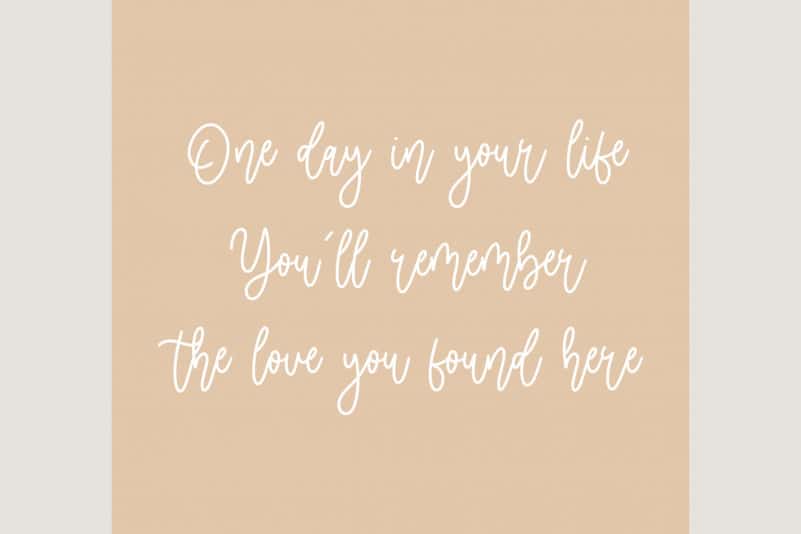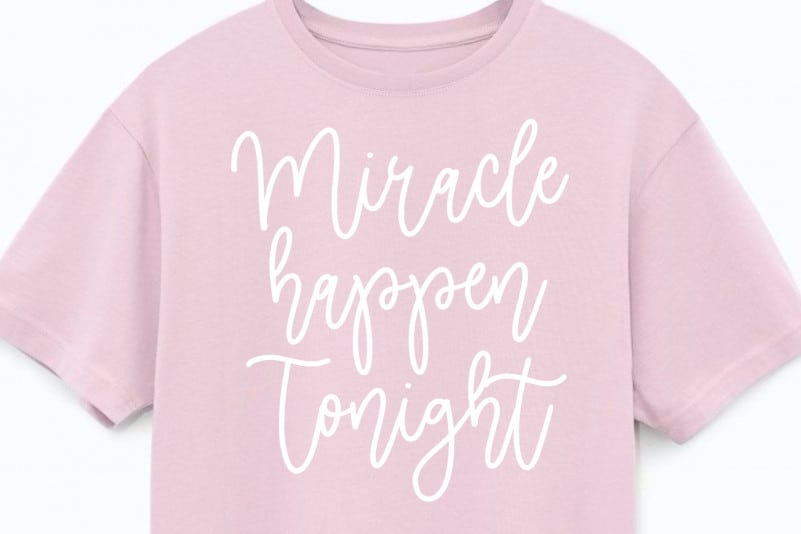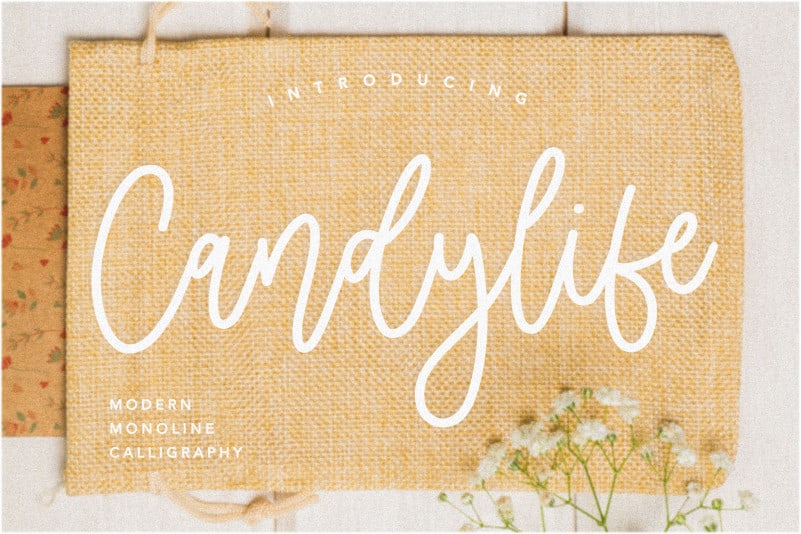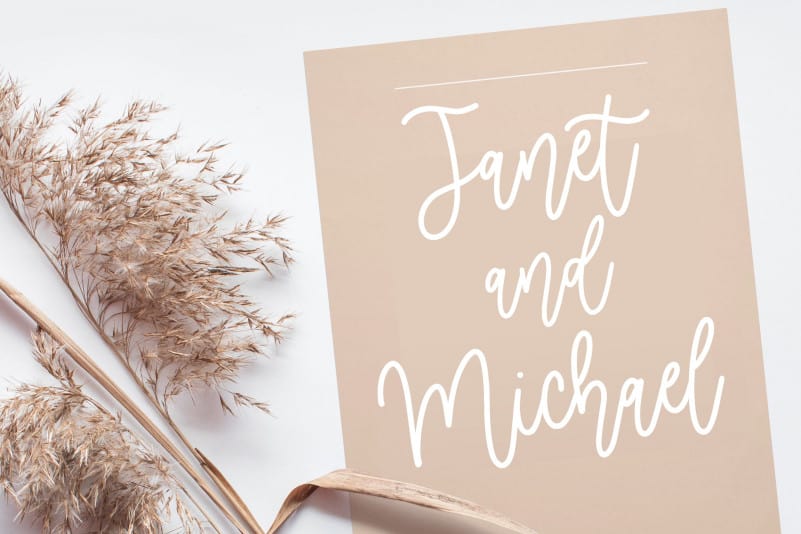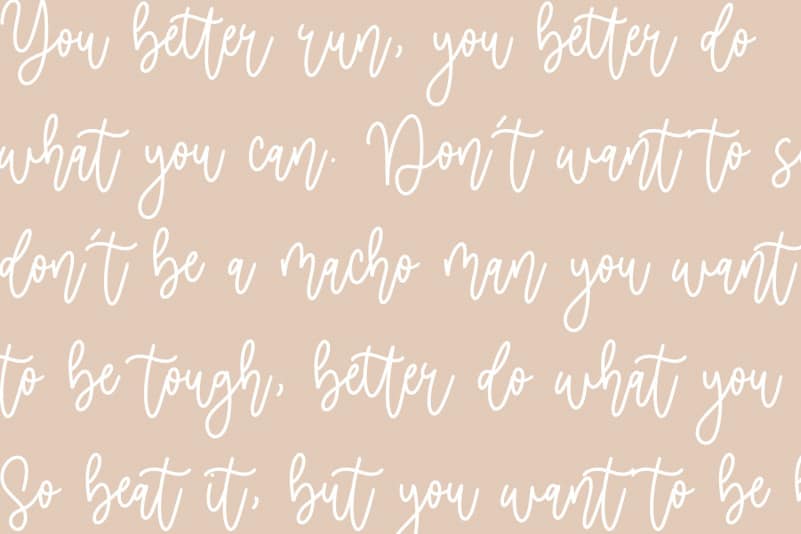
Candylife Monoline Calligraphy Font
Proudly Present, Candylife Monoline Calligraphy Font.
Candylife is a Modern Monoline Calligraphy Font.
Candylife is perfect for product packaging, branding project, megazine, social media, wedding, or just used to express words above the background.